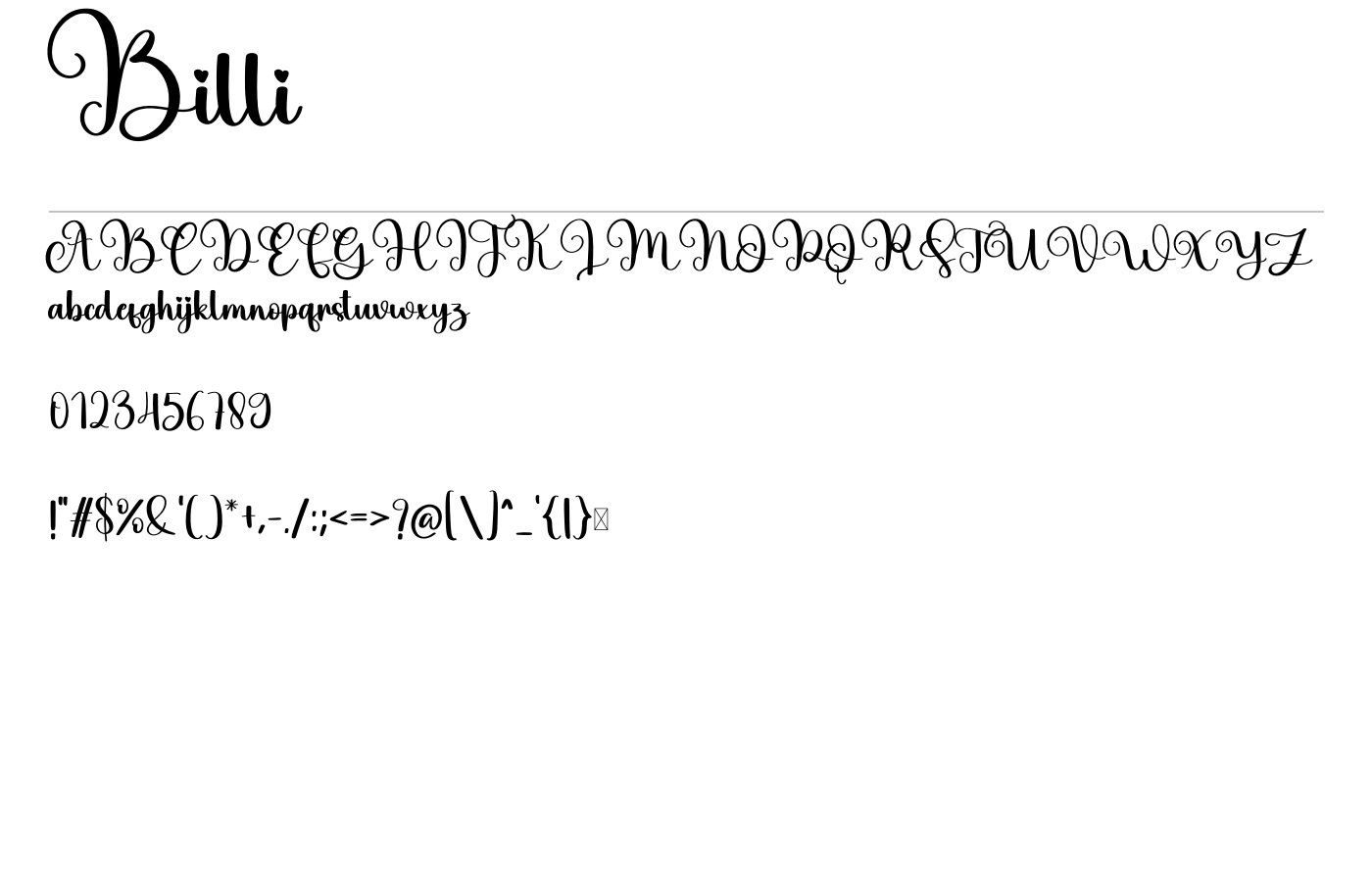
Billi is an elegant script font characterized by its flowing, decorative uppercase letters and smooth, slightly bold lowercase forms, making it feel both playful and refined. Its high contrast strokes and swirly flourishes lend a stylish, handcrafted personality ideal for invitations, branding, and creative headlines where a touch of charm and sophistication is desired. This font works best in designs that benefit from a warm, personal, and artistic feel, such as fashion, beauty, and boutique packaging.
Billi Font